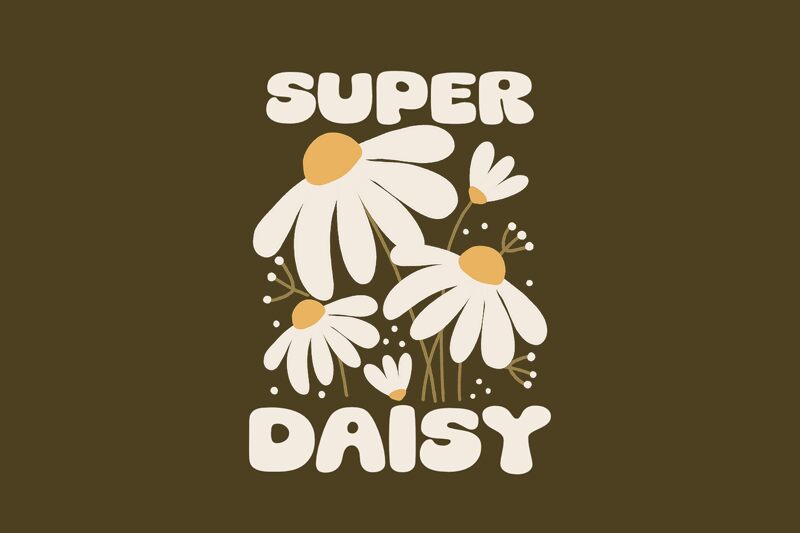
Super Daisy
Super Daisy is not your average font. Designed by fsuarez913, this display font stands out with its unique characteristics.
The round, heavy, and chubby letters of Super Daisy are eye-catching and playful, making it an ideal choice for headlines, logos, and other attention-grabbing designs. Whether you're working on a children's book, a poster for a fun event, or a vibrant advertising campaign, Super Daisy's boldness and playfulness will bring your project to life.
If you're looking for a font that exudes personality and captures attention, look no further than Super Daisy. Its versatility and eye-catching design make it suitable for a wide range of creative projects. Let Super Daisy add some fun and flair to your next design endeavor!